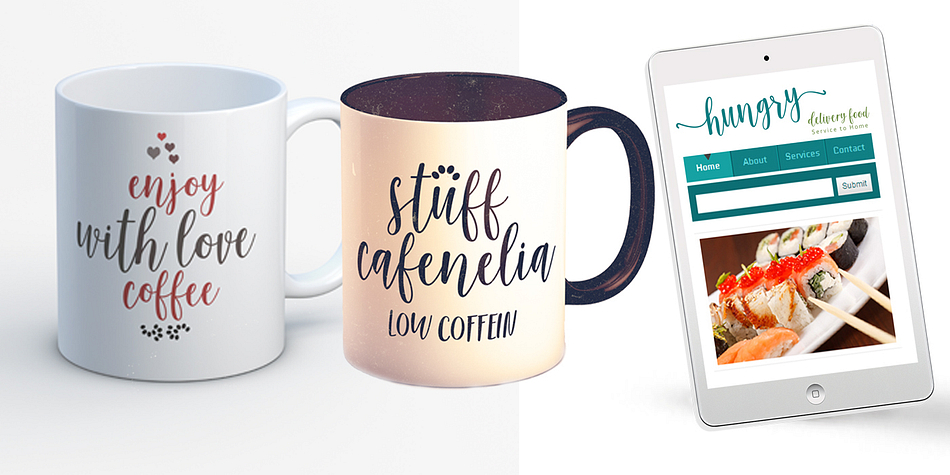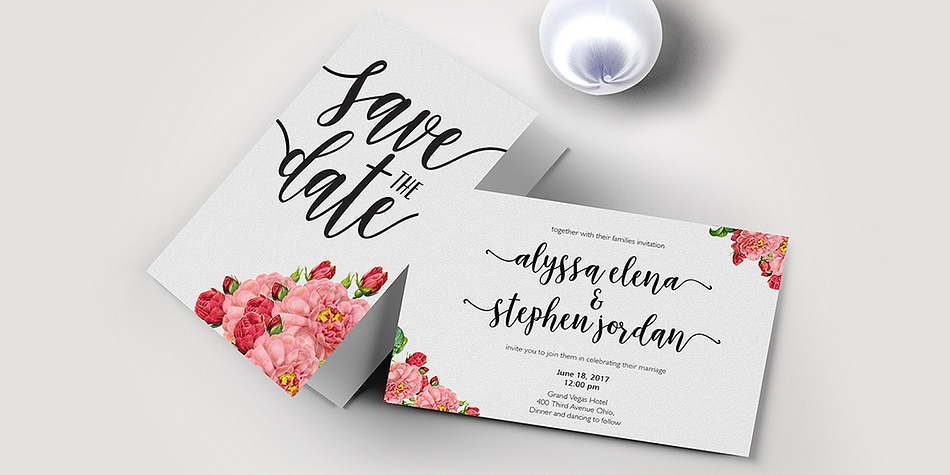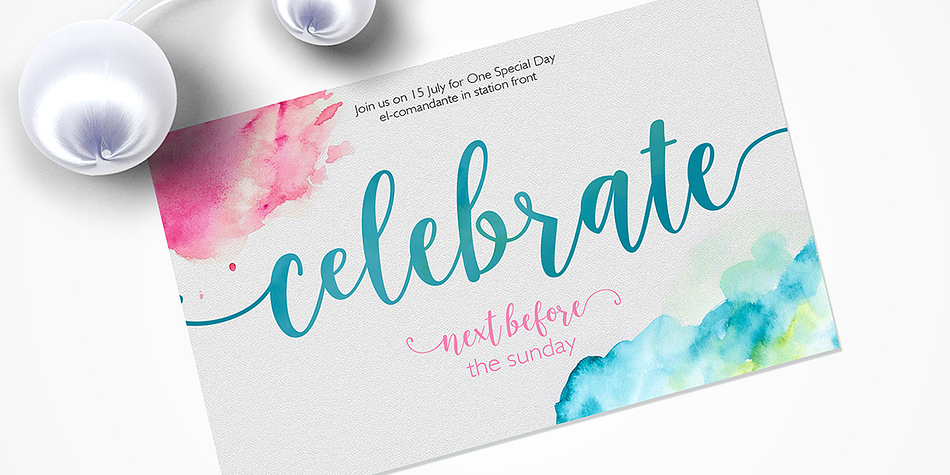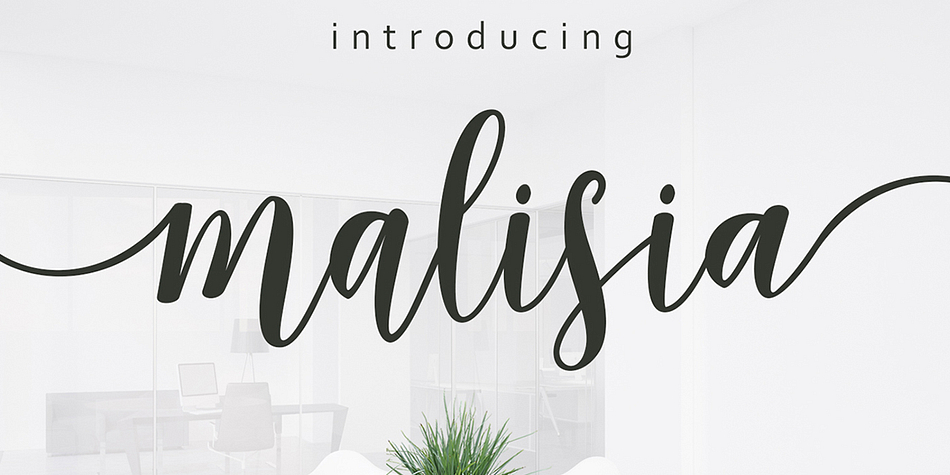
Malisia Script is a script and modern calligraphy font published by Genesislab.
Introducing the latest font from Genesislab: Malisia Script. It features the modern hand scratched look. This font can be easily used because it contains many features: a complete set of letters (lower and uppercase), assorted punctuation, numbers, and multilingual support. The font also contains several ligatures and alternate Stylistic Sets for those of you who have software that is able to work OpenType (Photoshop / Illustrator / InDesign).
Malisia Script is suitable for current market design developed. This font has is trendy, natural and gentle. With this font you can take advantage of the beauty of every moment. It is a wonderful way to highlight celebrations, because Malisia Script will befit purposes such as wedding invitations, parties, graduations, birthdays, gatherings, etc.